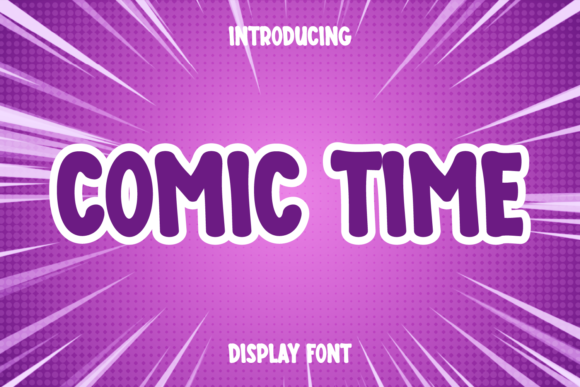
Bringing Imagination to Life: The Power of Comic Time Font
Remember the thrill of creating your own comic strip as a kid? The excitement of bringing your imagination to life with colorful characters, witty dialogue, and action-packed scenes? That sense of playfulness and creativity is exactly what Comic Time Font embodies. This friendly display font is the perfect choice for any children’s activity or elementary school design, where imagination and authenticity are key.
Comic Time Font is more than just a font – it’s a tool to help designers connect with their audience on a deeper level. Its playful nature makes it an ideal choice for educational materials, children’s books, and even advertising campaigns that target a younger demographic. Whether you’re a seasoned designer or just starting out, Comic Time Font is a valuable addition to your toolkit, offering a unique and engaging way to convey your message.
Comic Time Font Key Features
- Font Family: Comic Time Font is a sans-serif font family designed specifically for comic book-style typography. It is available in multiple weights, from light to bold.
- Unique Characteristics: Comic Time Font features a distinctive, hand-drawn style with exaggerated letterforms and bold lines, making it perfect for comic book-style artwork and graphic novels.
Designer Review: Comic Time Font
Overall, I think Comic Time Font is an interesting addition to the world of display fonts. It’s certainly eye-catching and has a lot of personality. ✨
The font’s design is clearly inspired by comic book lettering, with bold lines and a dynamic feel. This makes it perfect for anyone looking to add a touch of retro charm to their design projects. ✨
- Unique and playful design
- Perfect for comic book-inspired projects or retro-themed designs
However, I do have a few concerns about the font’s limitations. ⚠️
- May not be suitable for professional or formal projects
- Lack of consistency in font weight and line thickness
- Not ideal for large blocks of text
Overall, I think Comic Time Font is a great choice for designers who want to add some visual interest to their projects. While it may not be perfect for every use case, its unique design and high customization options make it a valuable addition to any designer’s toolkit.
Comic Time Font is ideal for creating playful, comic-style graphics and text elements. Some common use cases include:
- Comic book-style illustrations
- Graphic novels and manga-style art
- Cartoon-style animations and videos
- Playful social media graphics and advertisements